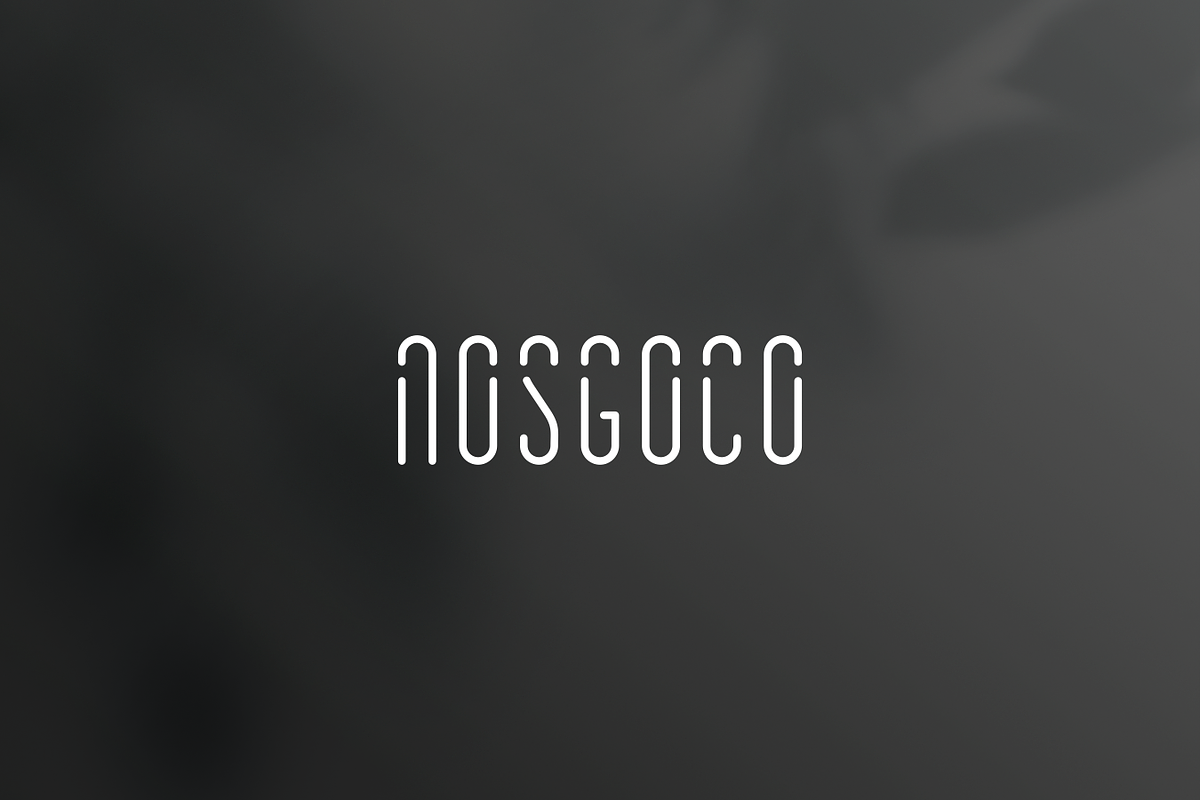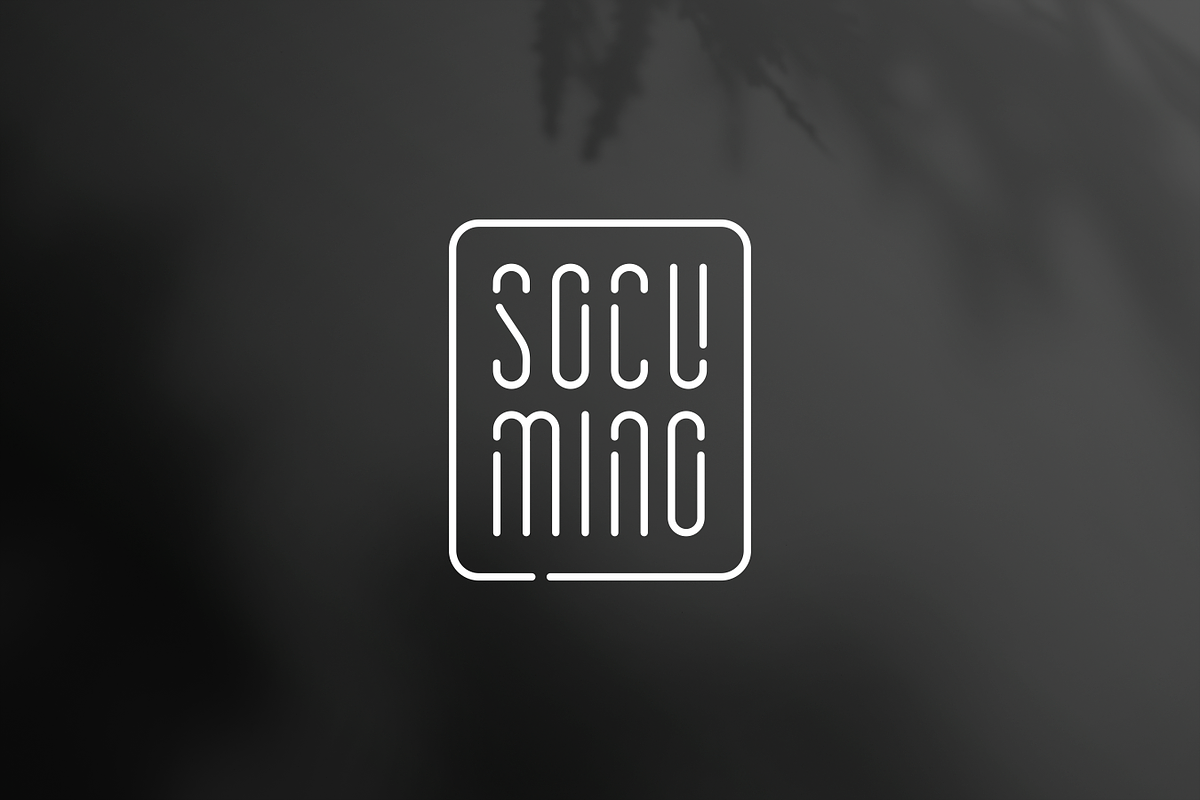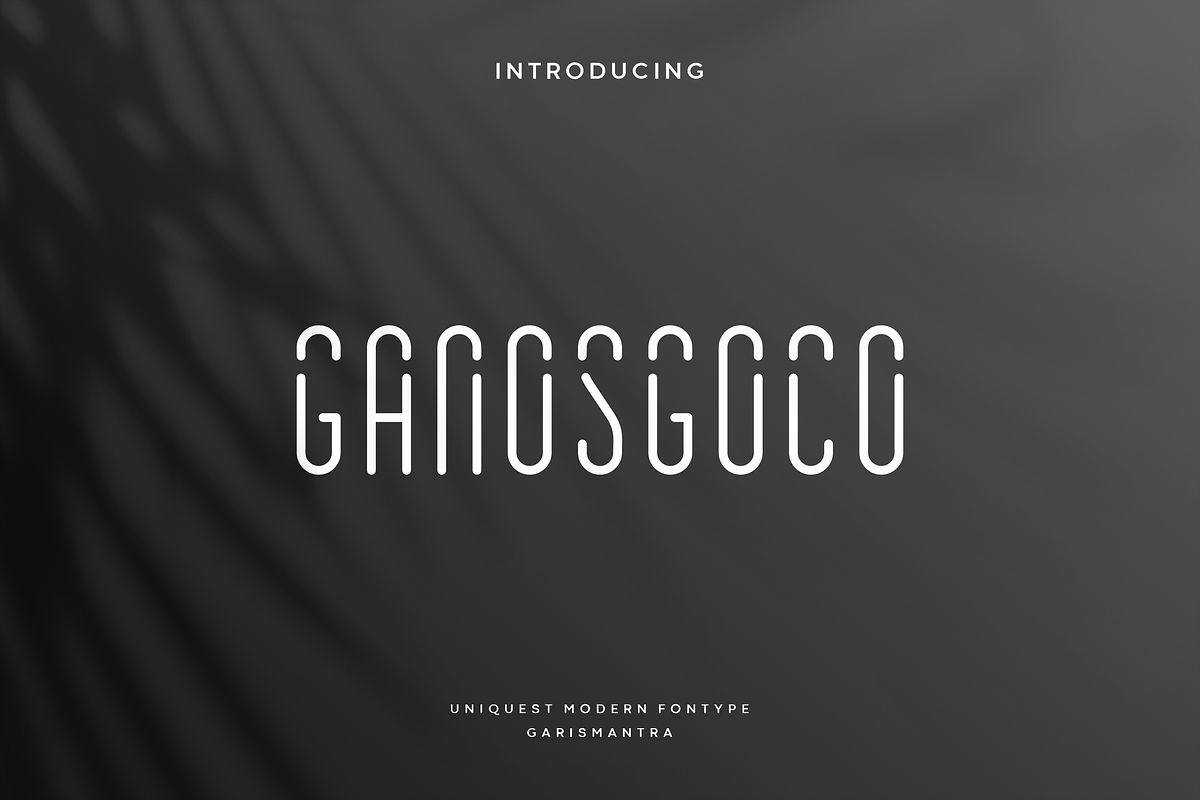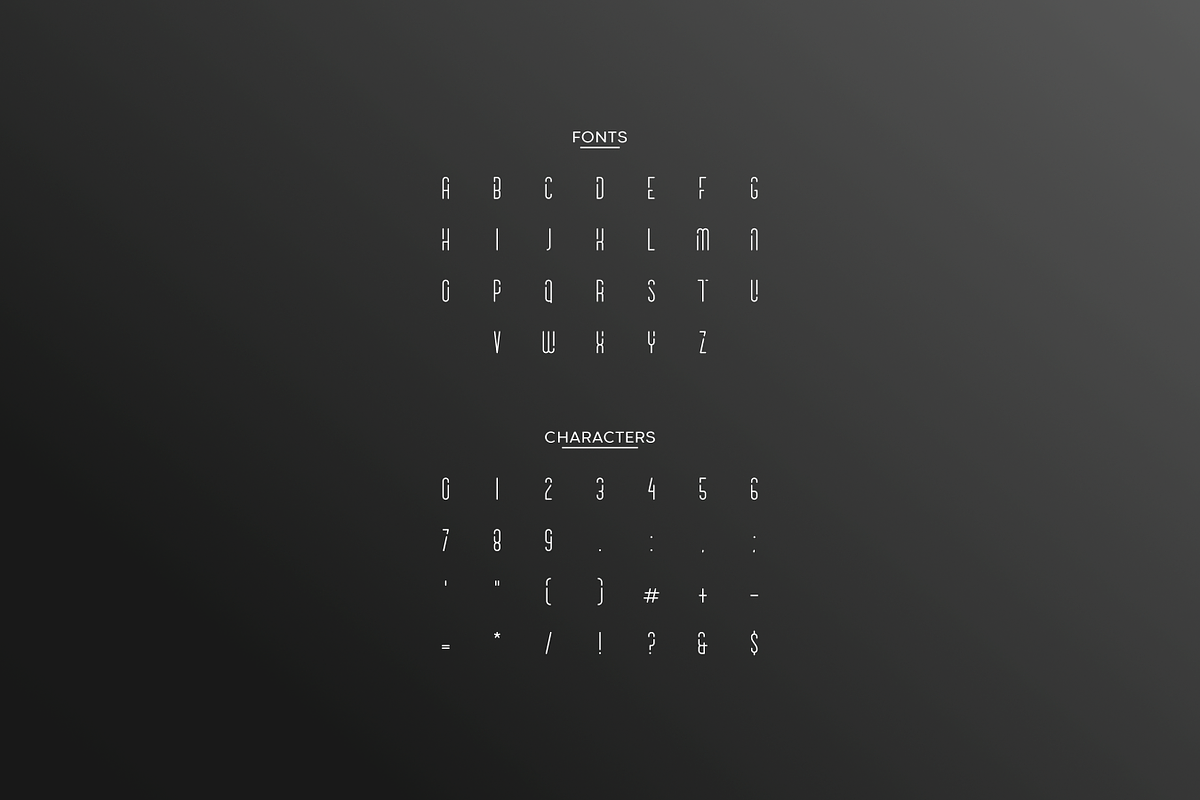
Ganosgoco
Ganosgoco finds its inspiration in a modern and slightly contemporary type of form. The slab serif font family, Ganosgoco consists of solid fonts and outlines and an outline style that lends an elegant touch to a light design. Ganosgoco has rounded corners and dynamic breaks in each letter, besides that there is also an outline version that gives a flexible feel to any type of design. This font looks great on looks and outfits or on packaging designs, take it and use your creativity.